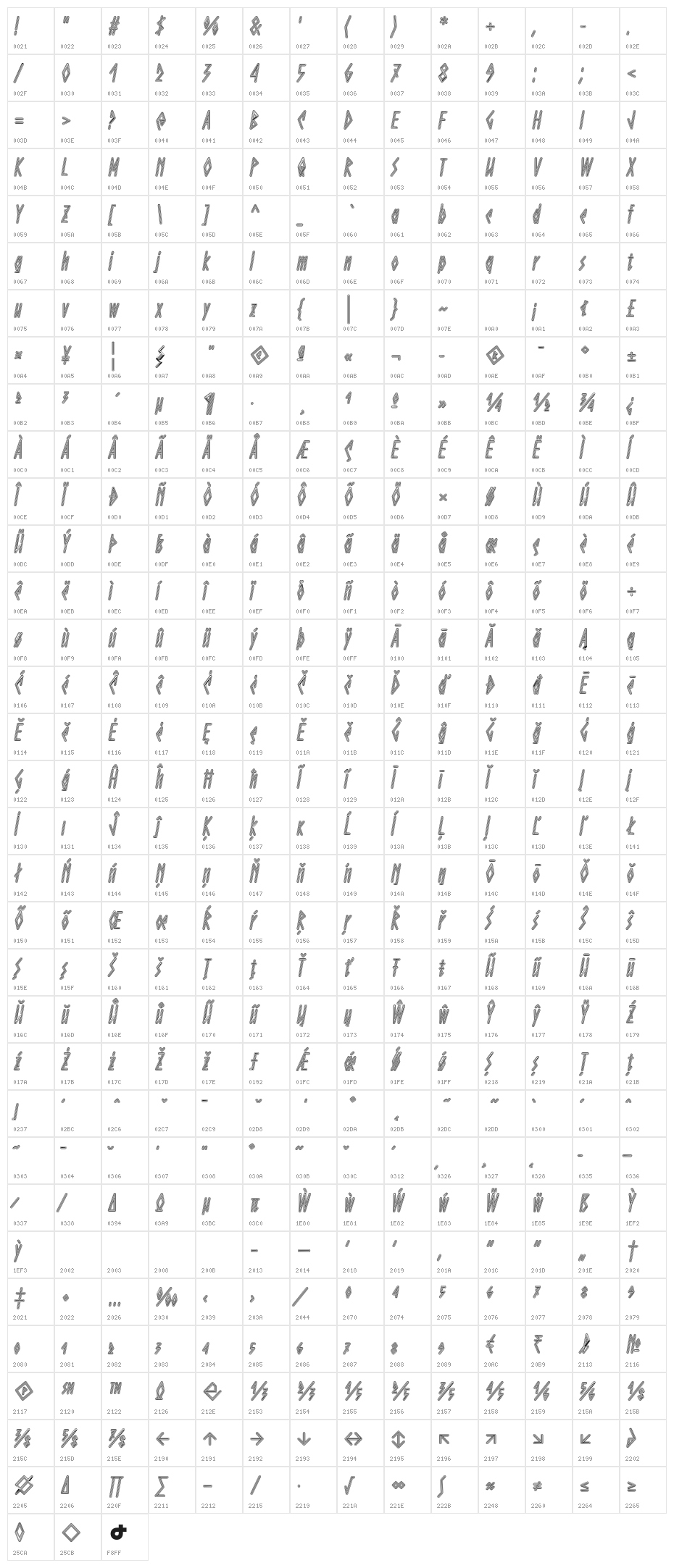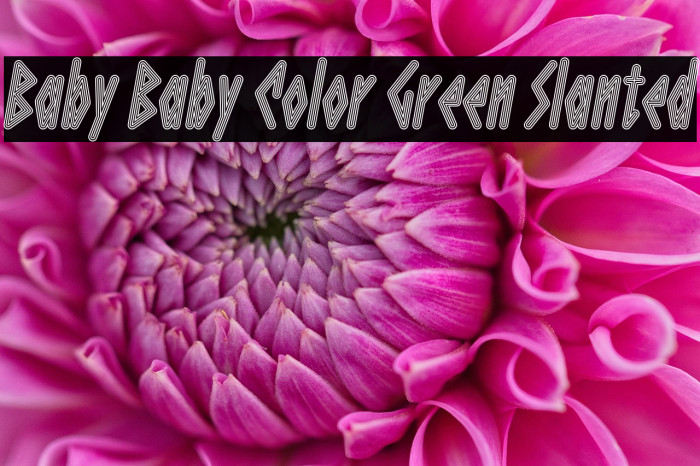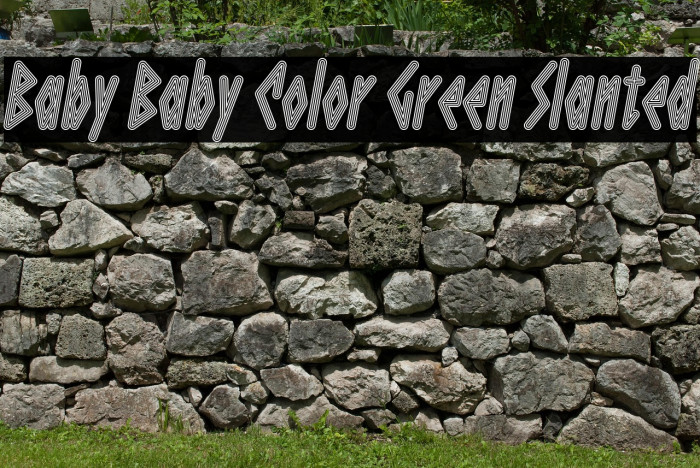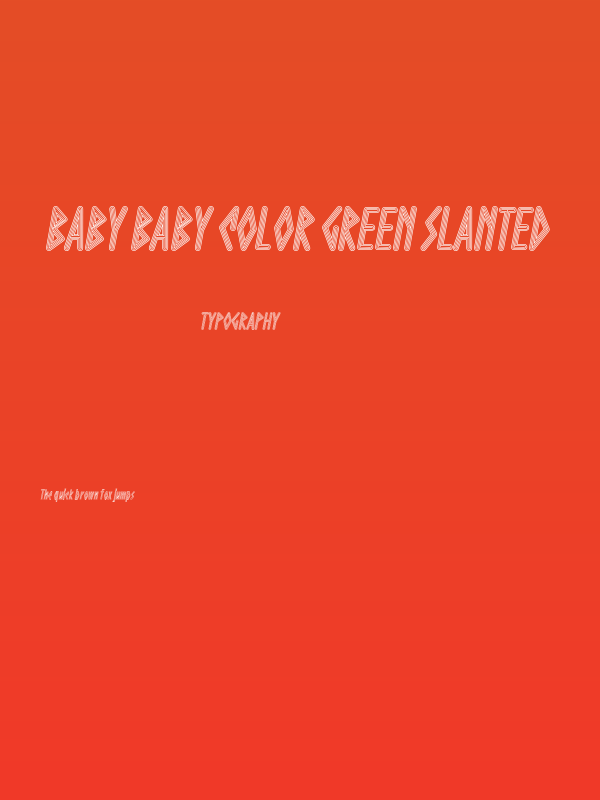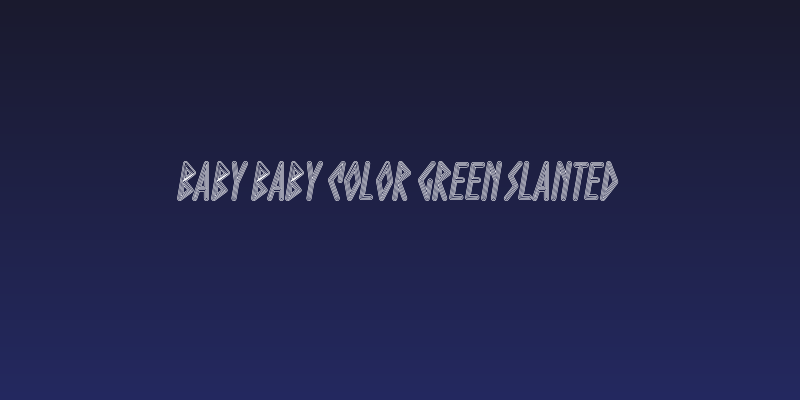
Baby Baby Color Green Slanted Font
Baby Baby Color Green Slanted Description
This font features a playful and dynamic design with a slanted, outlined style. The characters are bold and have a three-dimensional appearance due to the layered outline effect. The uppercase and lowercase letters maintain a consistent slant, giving the font a sense of motion and energy. The numbers and special characters follow the same design principles, ensuring uniformity across all elements. This font's unique style makes it stand out, perfect for creative and eye-catching designs.